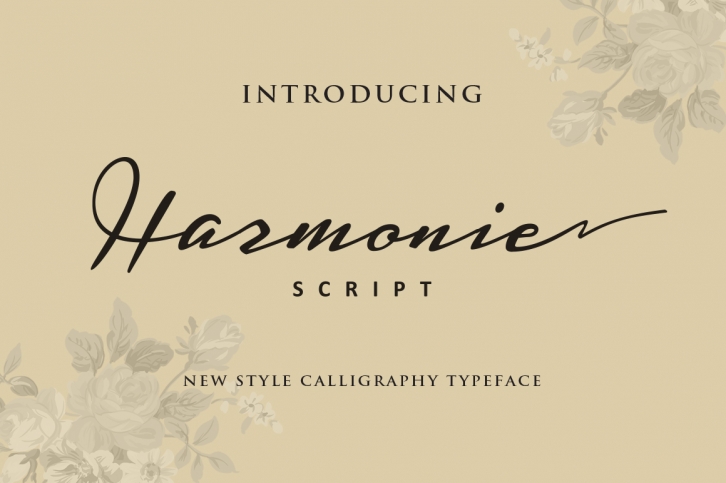
Harmonie Script is a beautiful font that was designed by IanMikraz. It's a great choice for designers and creatives who need such a font. It was released on April 24, 2017 and the file size is 3.57 MB. Harmonie Script may give a more youthful, expressive and casual look to your project. It is a very beautiful, refined, elegant, and high-quality font.